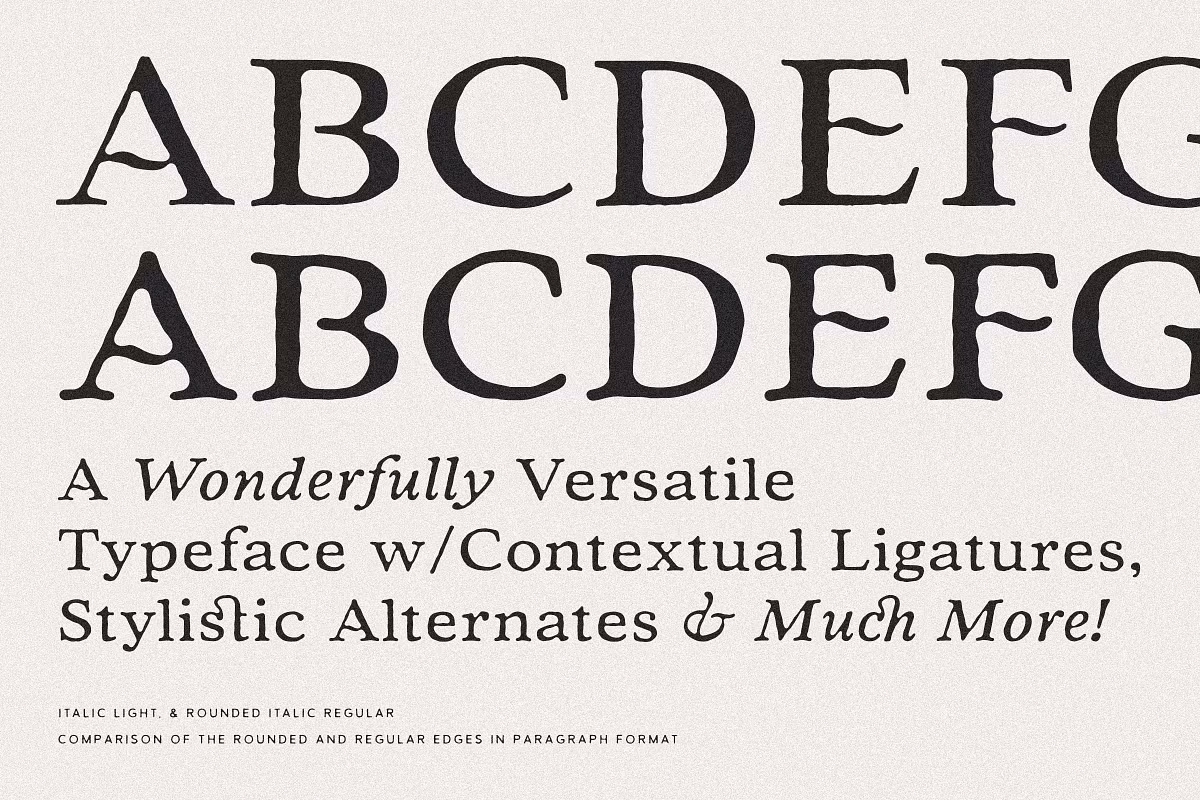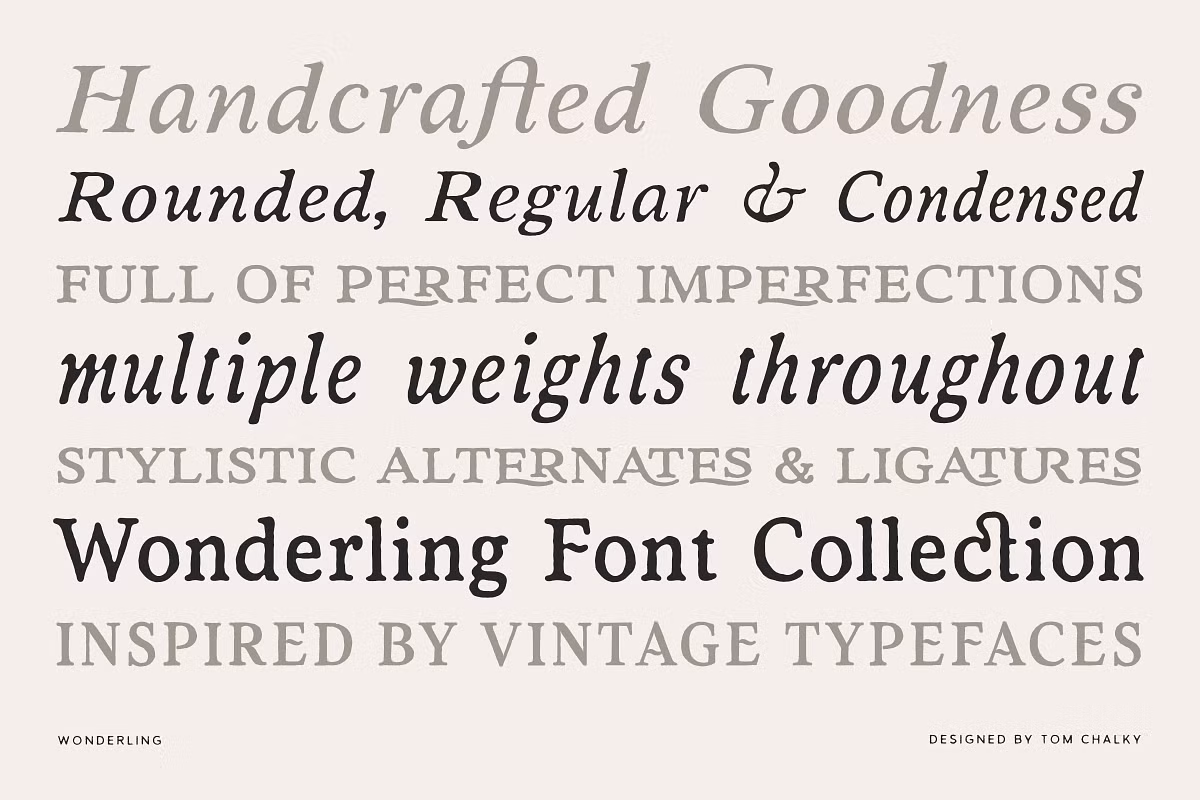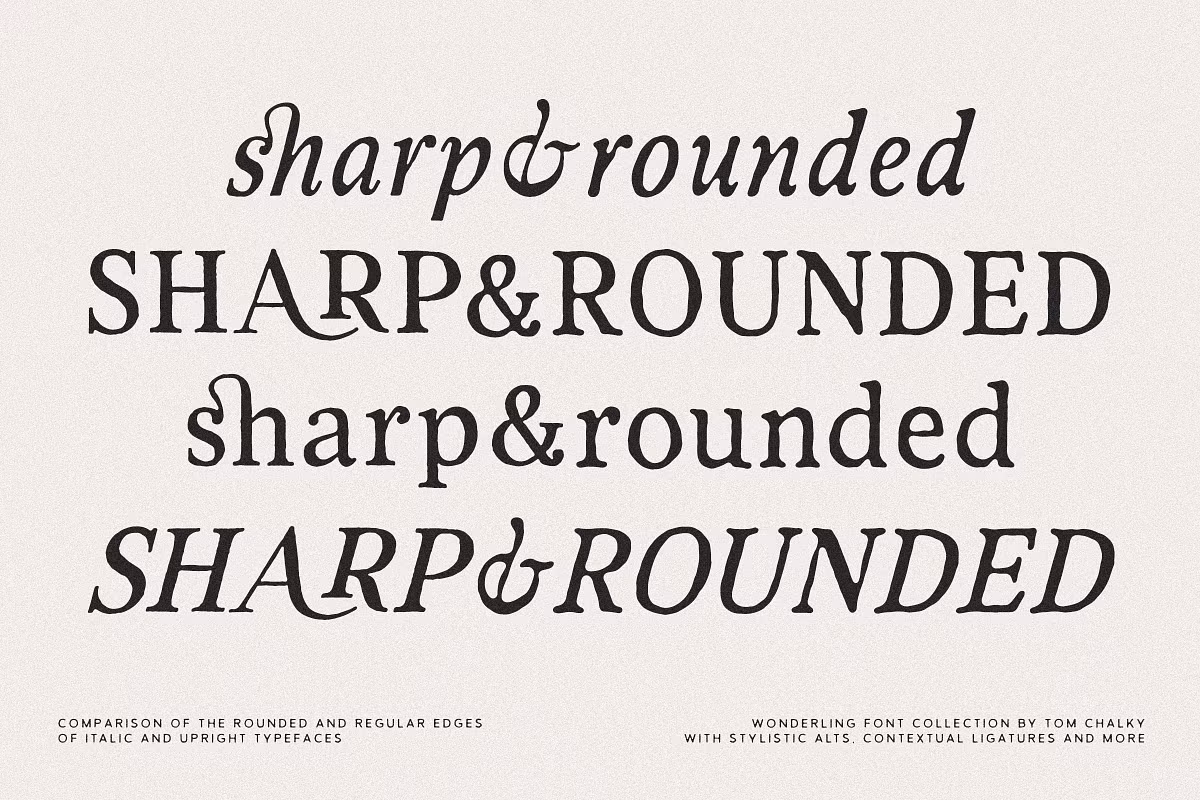
Wonderling Font Pack: Versatile Vintage Typography Collection
The Wonderling Font Collection feels strong and simple. I see the Wonderling Font Collection as a tribute, to style letters. The Wonderling Font Collection pulls from serif letters that were used years ago. The Wonderling Font Collection mixes that look with a hand made look. The Wonderling Font Collection works for design jobs. You can use the Wonderling Font Collection for logos, invitations, packaging, branding and other things.
The design style of the Wonderling Font Collection comes from the nostalgia of typography. Each font, in the Wonderling Font Collection has making. Each font shows a look. Still feels new. The Wonderling Font Collection includes styles such, as Regular, Bold, Italic and Condensed. The Wonderling Font Collection lets you pick the typeface for your project. I enjoy using the Wonderling Font Collection because the Wonderling Font Collection feels like a piece of the past and works well today.
I have tried the Wonderling fonts in my work. The Wonderling fonts have serif details that give the Wonderling fonts a look. The Wonderling fonts use curves and angles that bring a feeling of history and class. Whether you are making a wedding invitation, a brand logo or an elegant packaging design the Wonderling fonts can make your work better, with the special look of the Wonderling fonts.
Character Sets
A key feature of the Wonderling Font Collection is the character set. The Wonderling Font Collection includes the Latin 1 Glyph range. The Latin 1 Glyph range covers all languages. I use the Latin 1 Glyph range when I need to work with languages. The extensive character set lets a design reach people. The extensive character set does not lower the quality of a design. The extensive character set keeps the style of a design. I have tried the Wonderling Font Collection on projects. The character set saved me time.
I find the collection has ligatures and stylistic alternates. The contextual ligatures and stylistic alternates give me ways to shape letters. The contextual ligatures and stylistic alternates let me build compositions that look clear and interesting. I add a touch of flair to the designs when I use the ligatures and stylistic alternates. The designs then stand out from the crowd.
I like the Wonderling Font Collection. The Wonderling Font Collection can be used in design projects. Here are some practical applications:
- Branding: I find that Wonderling fonts help shape brand identity and Wonderling fonts connect with your audience. The simple and lasting look of Wonderling fonts helps make your brand a premium offering.
- Invitations: The collection works well for making wedding invitations, party. Corporate event invitations. The vintage charm gives invitations a touch of class. Improves the look.
- Packaging: I have tried the Wonderling fonts, on packaging. I see the Wonderling fonts help the design catch the eye. The Wonderling fonts also let the packaging tell the brand story to the consumer.
- Logos: I design logos that capture the core of your brand. Logos have weights and styles and logos let you pick the look you need.
With its versatile styles and extensive character set, the Wonderling Font Collection truly stands out in the realm of typography.